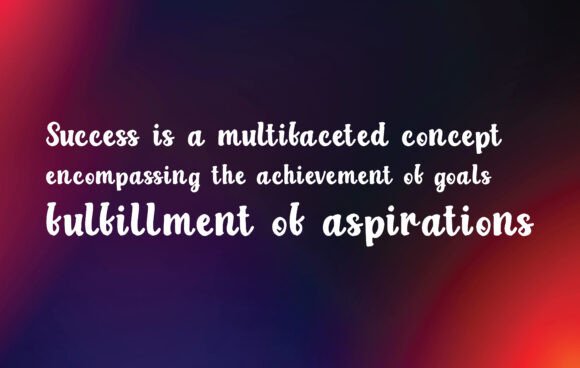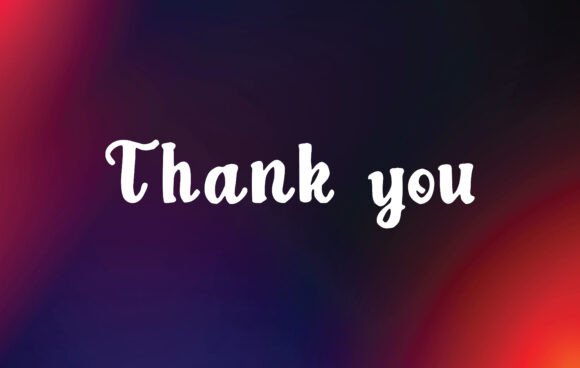
Aumoney Font: The Ultimate Creative Companion for Designers and Crafters
In the world of design, the right font can make all the difference. It’s not just about conveying a message; it’s about doing so with style and personality. For designers, crafters, and DIY enthusiasts, finding that perfect font can be a game-changer. This is where Aumoney Font comes into play—a versatile, eye-catching, and highly readable typeface designed to bring your creative ideas to life.
Aumoney Font is crafted to be a go-to favorite in your font collection. Its versatility is one of its standout features, making it suitable for a wide range of projects. Whether you’re working on magazine covers, t-shirts, social media posts, branding materials, wedding invitations, or greeting cards, Aumoney Font fits right in. Its adaptability ensures that your designs are not only visually appealing but also cohesive and professional.
Clarity and Readability
One of the key advantages of Aumoney Font is its clarity and ease of readability. In today’s fast-paced digital world, capturing and retaining the reader’s attention is more challenging than ever. Aumoney Font addresses this challenge with its clear and easy-to-read design, making it an excellent choice for both titles and body text. This clarity ensures that your message is conveyed effectively, whether it’s in a blog post, a social media update, or a marketing brochure.
Eye-Catching and Stylish
While readability is crucial, aesthetics play a significant role in design as well. Aumoney Font strikes the perfect balance between style and functionality. Its eye-catching design adds a touch of personality to your projects, setting them apart from the ordinary. Whether you’re aiming for a modern, trendy look or something more classic and elegant, Aumoney Font can be tailored to fit your creative vision.
Practical Applications for Designers and Crafters
For designers and crafters, Aumoney Font opens up a world of possibilities. Here are some practical applications where this font truly shines:
- Magazine Covers: Create stunning magazine covers that grab attention with Aumoney Font’s bold and stylish design.
- T-Shirts and Apparel: Design custom t-shirts and apparel that stand out with a font that’s both trendy and timeless.
- Social Media Posts: Elevate your social media presence with eye-catching posts that showcase your brand’s personality.
- Branding and Logos: Develop a strong brand identity with a font that’s versatile and memorable.
- Wedding Invitations and Greeting Cards: Add a touch of elegance and sophistication to your wedding invitations and greeting cards.
Why Choose Aumoney Font?
With so many fonts available, why choose Aumoney Font? The answer lies in its unique combination of versatility, readability, and style. Here are a few reasons why Aumoney Font should be your top pick:
- Time-Saving: With Aumoney Font, you don’t have to spend hours searching for the perfect font. It’s designed to be a one-stop solution for all your design needs.
- Consistency: Using Aumoney Font across your projects ensures consistency in your brand’s visual identity.
- Creativity Boost: Aumoney Font’s unique design can spark creativity, helping you to come up with fresh and innovative ideas for your projects.
Aumoney Font is more than just a typeface; it’s a creative companion designed to bring your ideas to life. Its versatility, clarity, and stylish design make it an indispensable tool for designers and crafters. Whether you’re a professional designer working on a client’s project or a DIY enthusiast creating something for personal use, Aumoney Font is sure to exceed your expectations. Make Aumoney Font your go-to choice for all your design needs and discover the difference it can make in your creative projects.